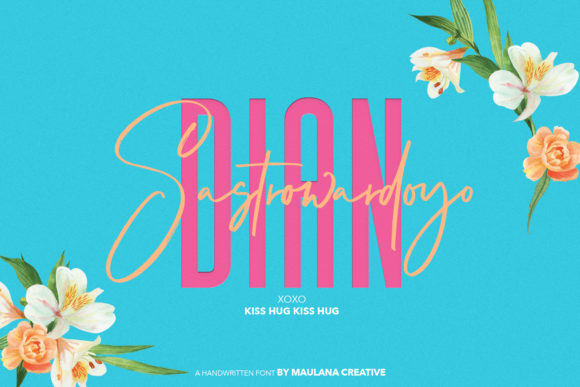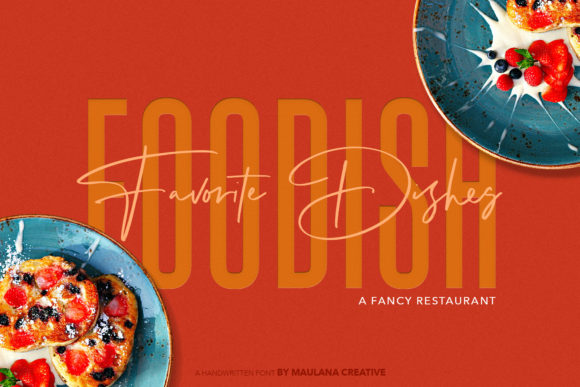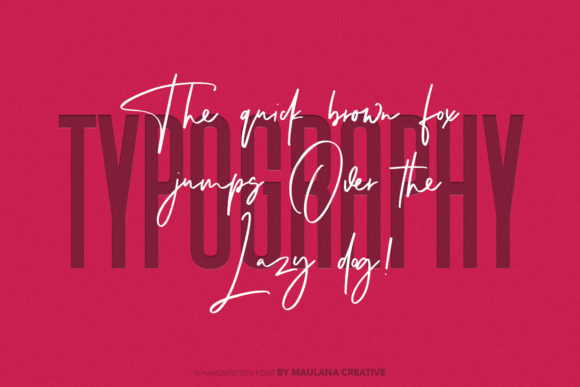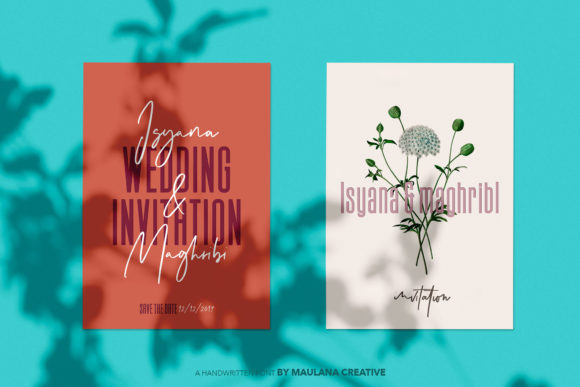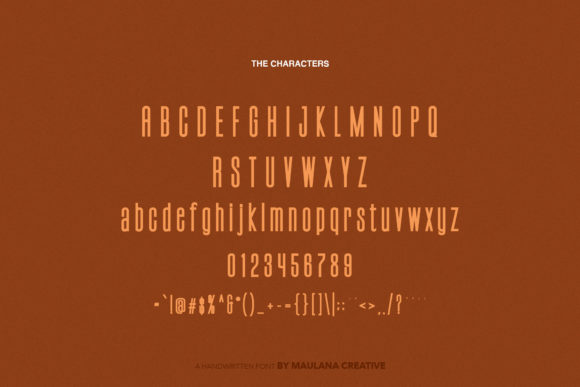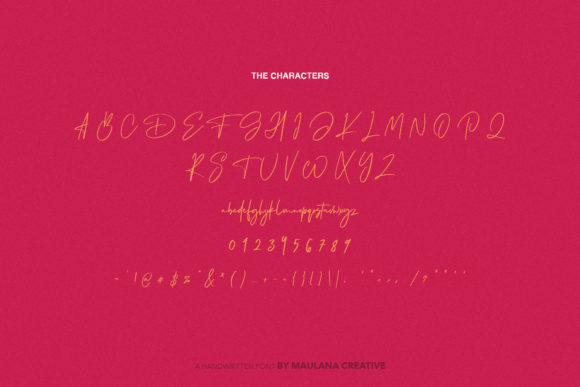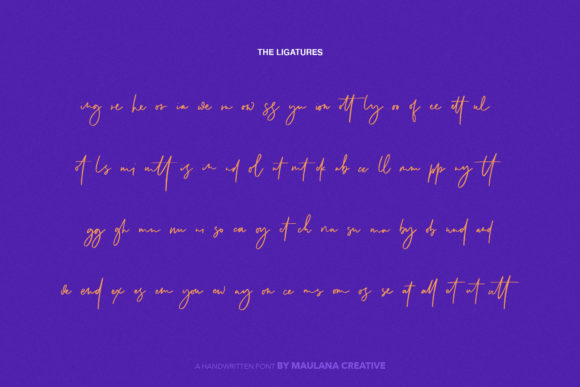
HomeScript FontsCabello Font Script Fonts Cabello Font FacebookXPinterestWhatsApp Cabello Font Poster 2 Cabello Font Poster 3 Cabello Font Poster 4 Cabello Font Poster 5 Cabello Font Poster 6 Cabello Font Poster 7 Cabello Font Poster 8 About Cabello Font Cabello is a light and charming script with a relaxed vibe. It will add an authentic feel to any design project! DOWNLOAD ON CREATIVE FABRICAThis font is sold and delivered by Creative Fabrica. Font Canyon may earn a commission if you buy through this link. People also explored Bowhead Font Schwaben Font Travelling Abroad Font Ink Sartteg Font Chibiux Font Winter Cloud Font Mellisa Jonathan Vol. 1 Font Butterfly Valentine Font Anime Font 297 0 TagsCabello Font Previous articleChoco Vanilla FontNext articleWesthamp Font LEAVE A REPLY Cancel reply Comment: Please enter your comment! Name:* Please enter your name here Email:* You have entered an incorrect email address! Please enter your email address here Website: Save my name, email, and website in this browser for the next time I comment. Personal Use Free Fakedes Personal Use Free Read more about this font Whoa Personal Use Free Read more about this font Jilliant Personal Use Free Read more about this font The Kingdom Personal Use Free Read more about this font BLOG Best Fonts for T-Shirt Design – Top 2025 Picks In 2025, t-shirt design has become more than just fashion—it's a form of self-expression. Whether you're... Exploring Font Trends Elegant Wedding Invitation Fonts – Handwritten & Script Fonts How to Install and Use Fonts on Windows, macOS, and Web Projects